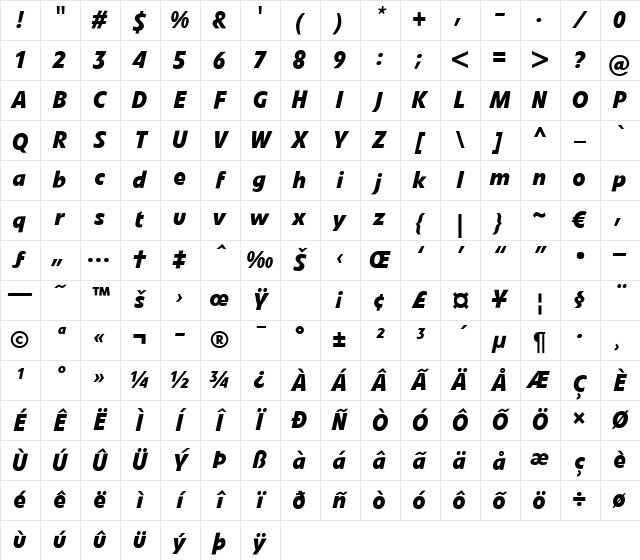
LTVeto Regular Bold Italic
Designer: Marco Ganz
Design Context for LTVeto Regular
LTVeto Regular is a composed and adaptable typeface that performs quietly and consistently across a wide range of design contexts. The slanted form adds forward momentum and visual energy. Its bold stroke weight gives it real presence on the page.
Pro Tip: Use LTVeto Regular for emphasis, pull quotes, and subheadings where its slanted energy can add rhythm to the layout.